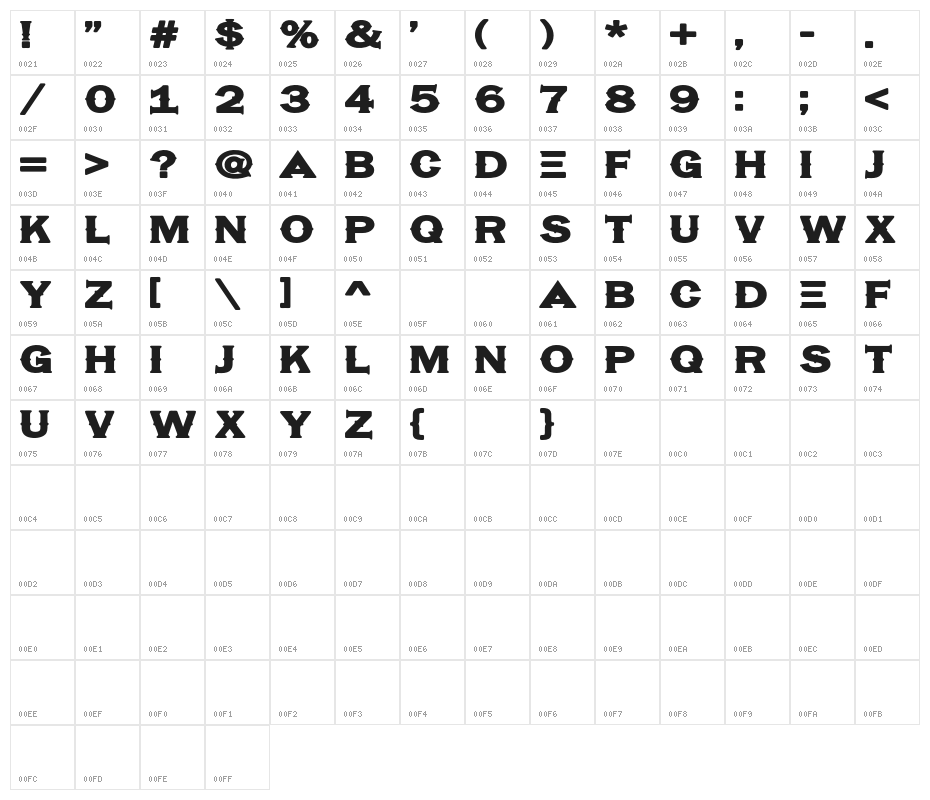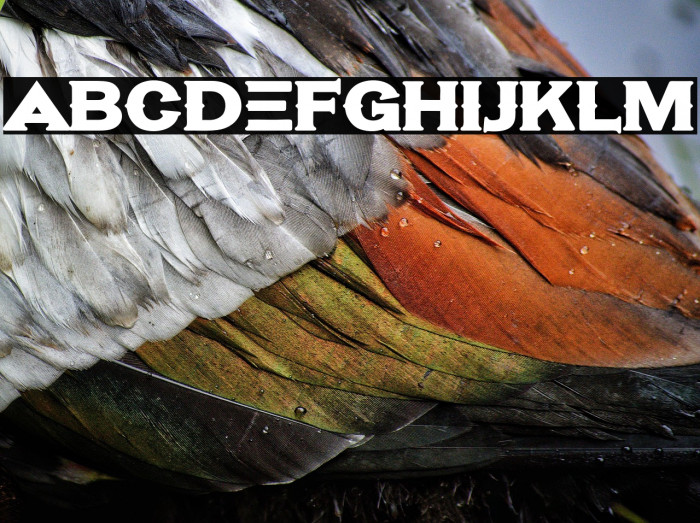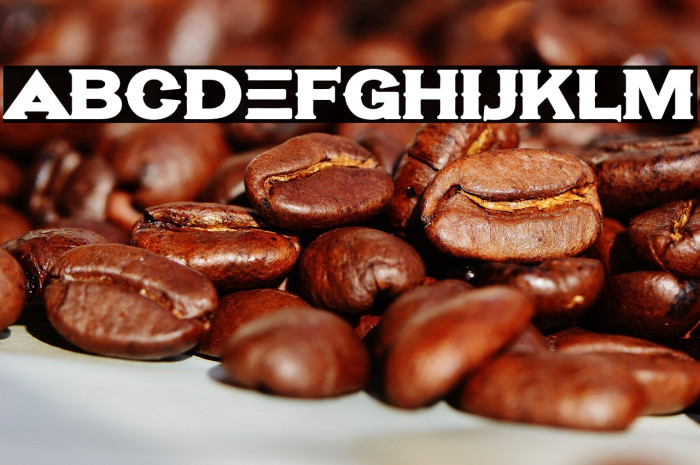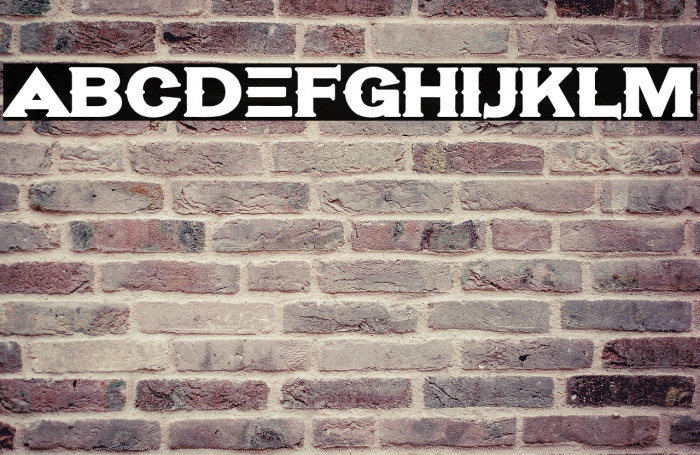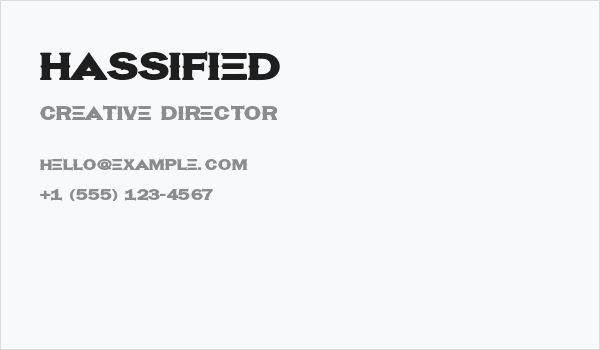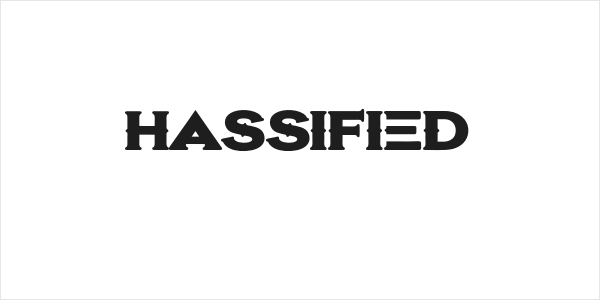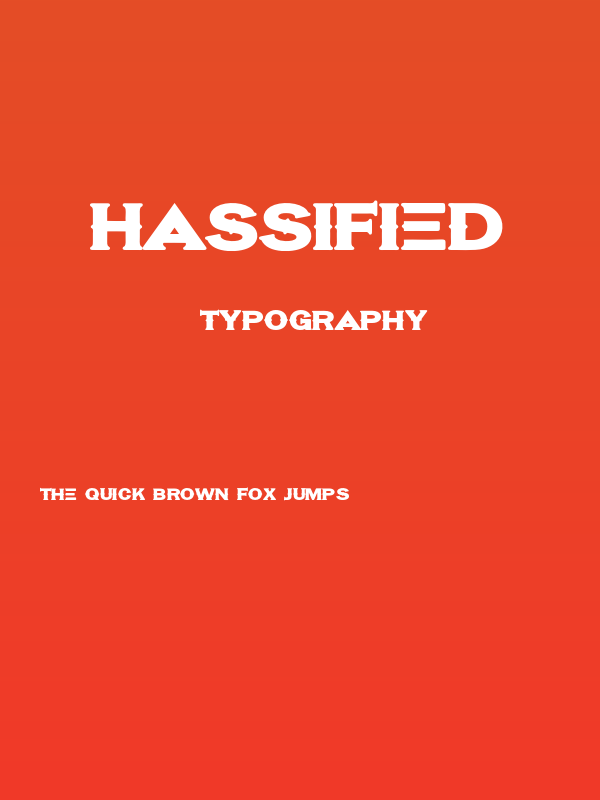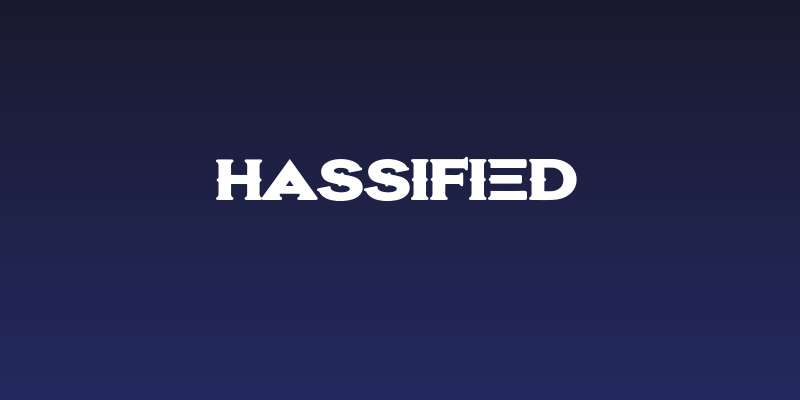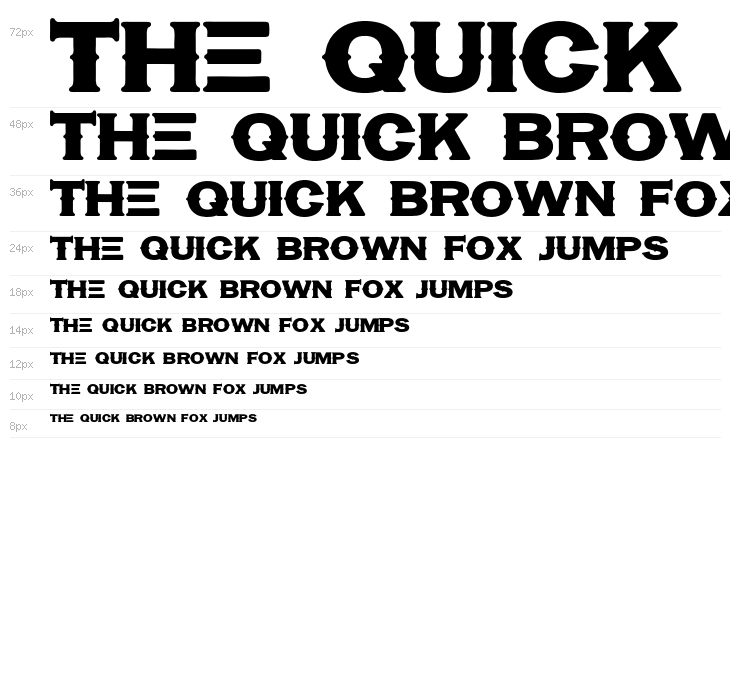
Hassified Font
Hassified Description
This font features a bold and striking design with a modern twist. The characters are robust and have a strong presence, making them ideal for attention-grabbing headlines. The uppercase letters are particularly distinctive, with unique cuts and angles that add a sense of dynamism and energy. The numbers and special characters maintain this bold style, ensuring consistency across all text elements. The font's design is both contemporary and versatile, suitable for a variety of creative projects.
| Proposed Projects | Ideal for branding, posters, headlines, and advertising materials. |